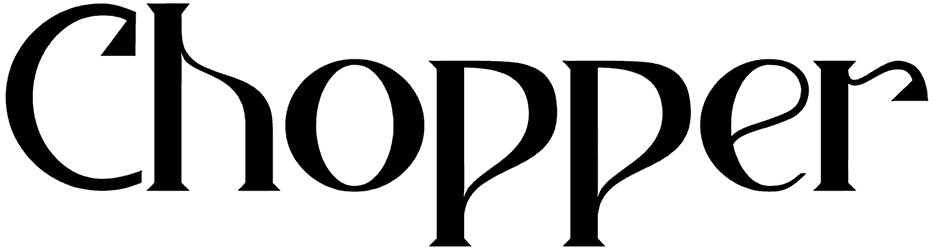
Chopper Font
The key point in persuading the audience to follow your artwork is connecting to their minds and affecting them with the help of a luxury serif font such as Chopper that comes with a vibe of formality, confidence, classic, or trustworthiness.
Due to its unique style, this retro font would look insanely fit for all of your creative ideas, like branding, logos, business cards, invitations, or important documents.